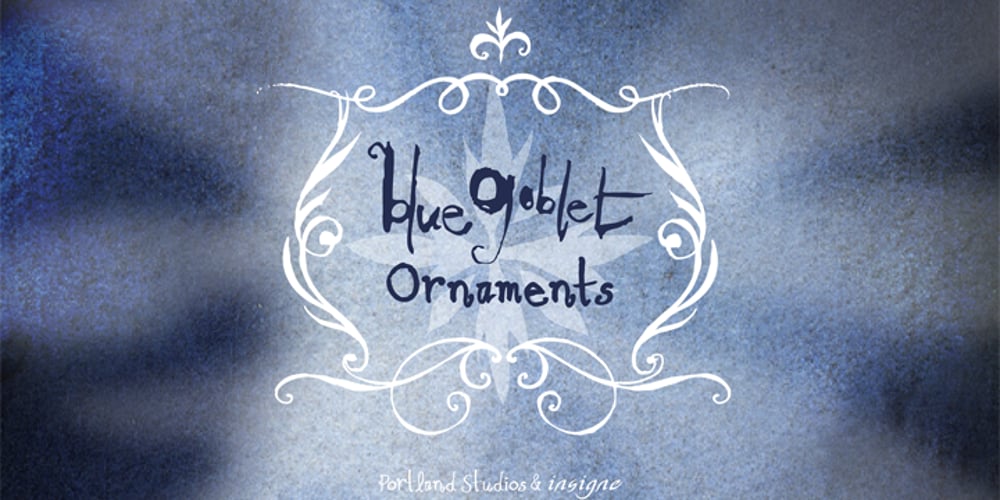
Blue Goblet Ornaments
Blue Goblet Ornaments font
Blue Goblet Ornaments Font Family was designed by Cory Godbey and published by insigne. Blue Goblet Ornaments contains 1 styles and family package options. Blue Goblet Ornaments are the ornament complement to Blue Goblet, a fun and whimsical brush script. These lively and cheerful ornaments can be resized and rotated easily without any loss of quality and can easily be converted to outlines and modified. Combine them to form unique compositions or insert them into text to add some excitement to your designs. Please see the sample .pdf to see all 48 ornaments in action. Blue Goblet Ornaments is a collaboration between insigne Design and Portland Studios.